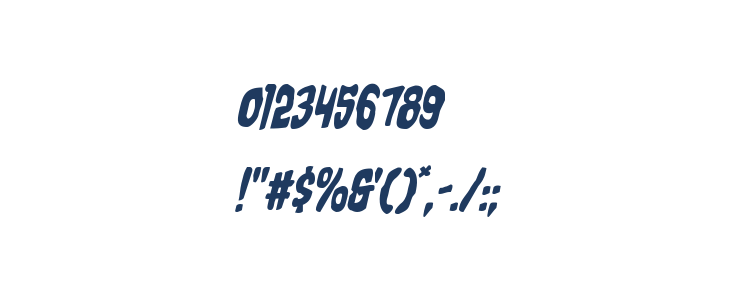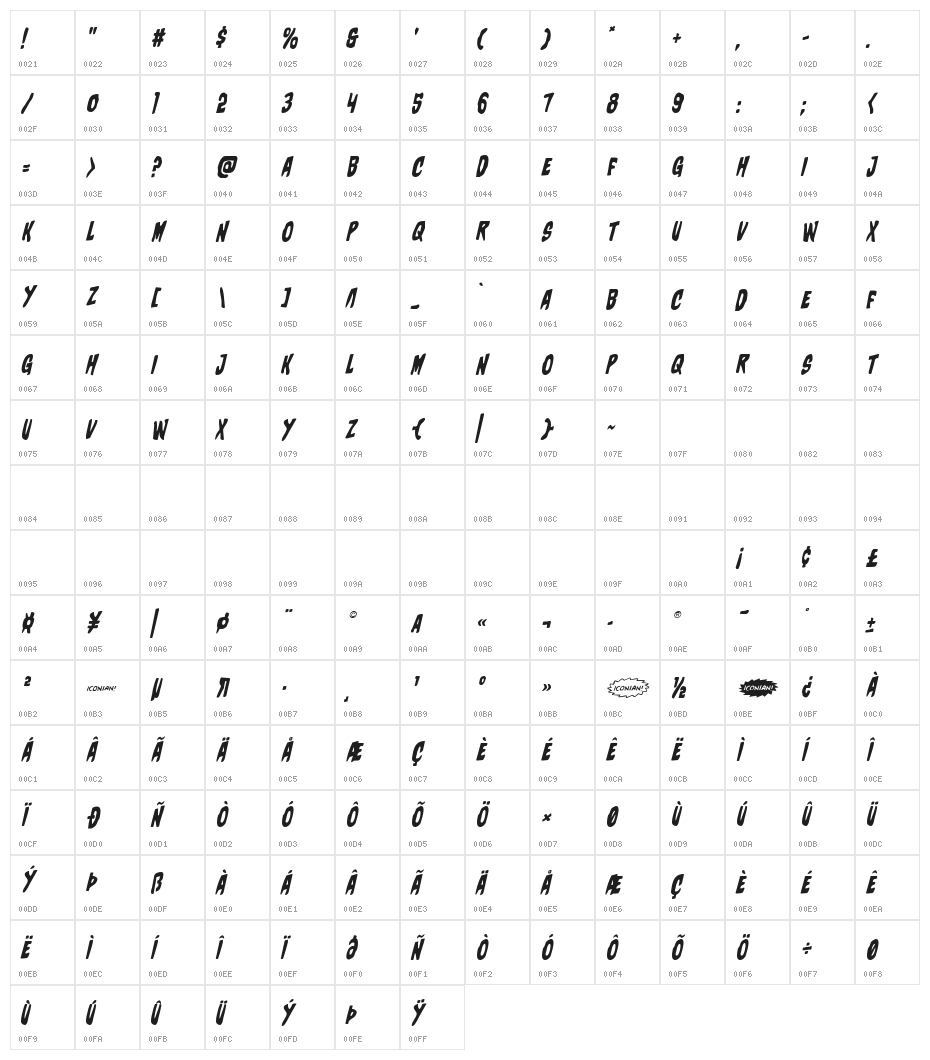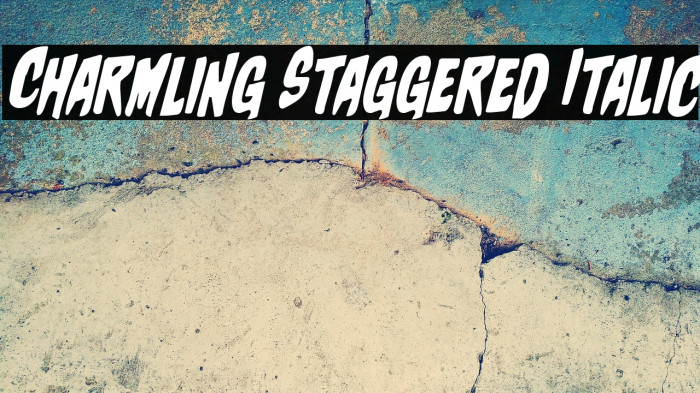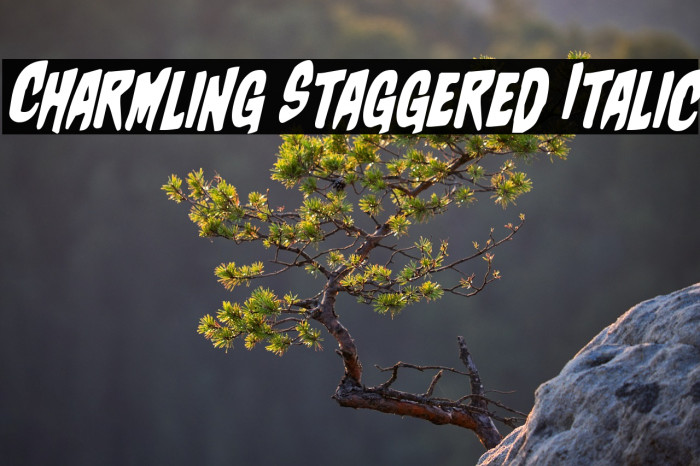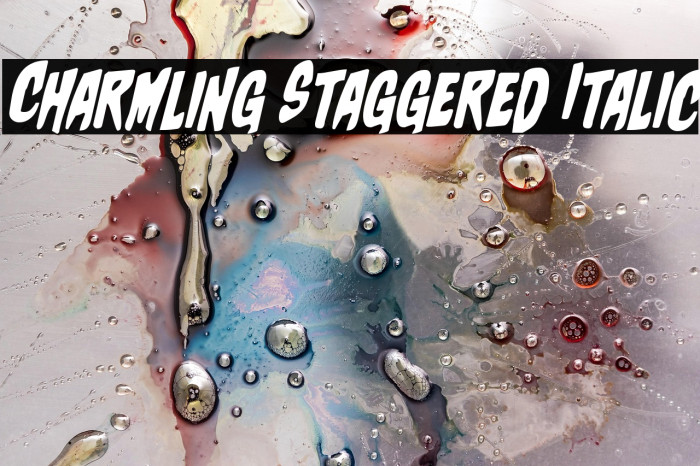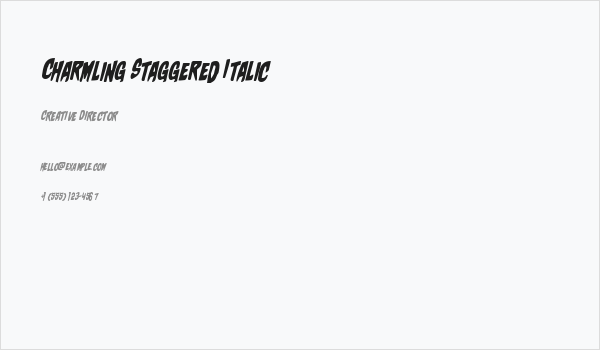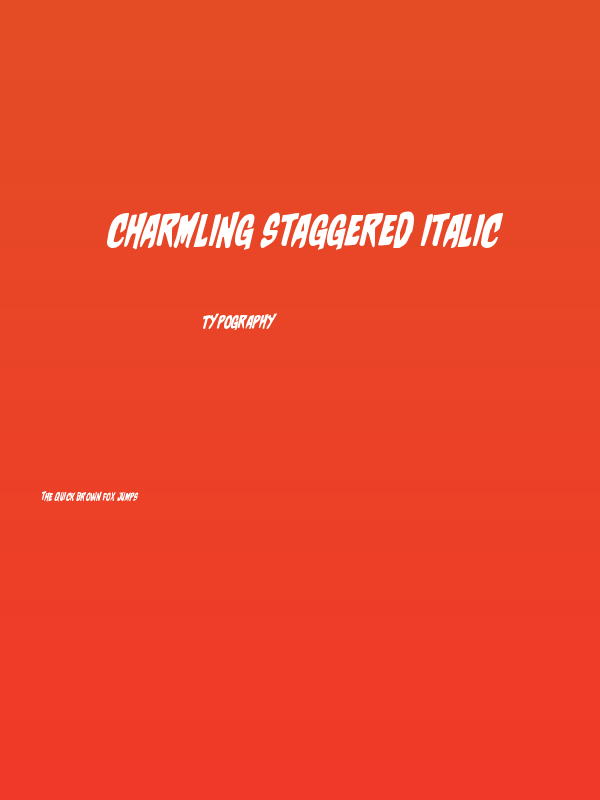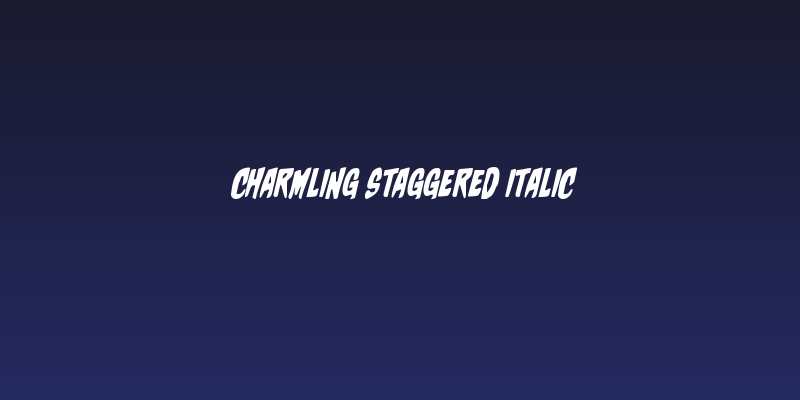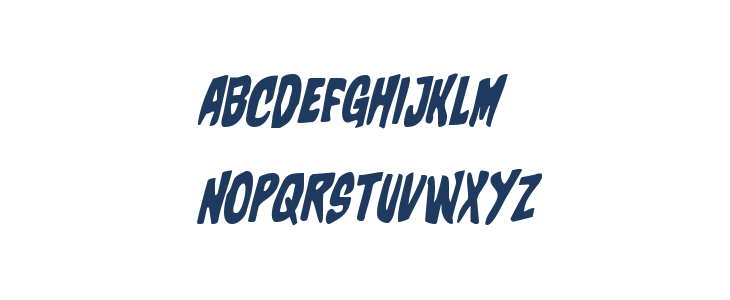
Charmling Staggered Italic Font
Charmling Staggered Italic Description
This font features a bold and dynamic style with a staggered, italicized appearance. The characters are thick and slightly slanted, giving a sense of movement and energy. The uppercase and lowercase letters maintain a consistent weight, while the numbers and special characters follow the same bold and italicized design. The font's playful and energetic style makes it suitable for creative and informal applications. The strokes are consistent in thickness, providing a uniform look across all characters.